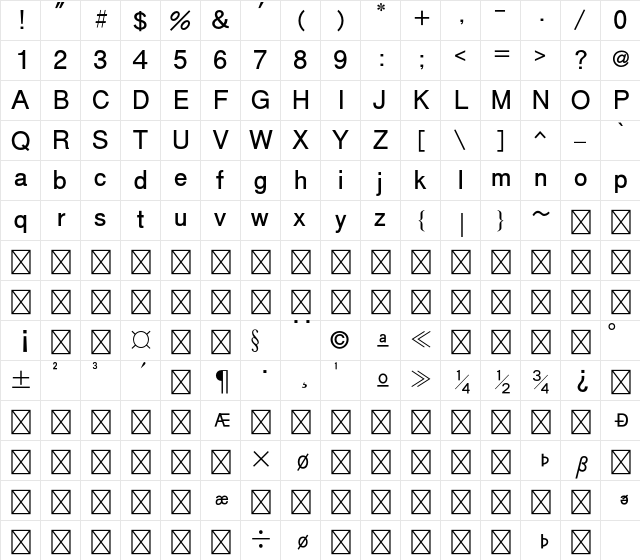
SMGothic Std DemiBold
Style: DemiBold
SMGothic Std Family
Complete SMGothic Std DemiBold glyph index. Displaying only characters natively supported by SMGothic Std DemiBold font.
Design Context for SMGothic Std
SMGothic Std takes a clean, functional approach - its unadorned letterforms prioritise legibility and work reliably across screen and print environments. Its bold stroke weight gives it real presence on the page.
Font Pairing: Works well alongside a characterful serif or display font that can carry the expressive load while SMGothic Std handles the functional copy.
Pro Tip: Use SMGothic Std for UI labels, navigation, and short-form body copy where clean legibility is the priority.